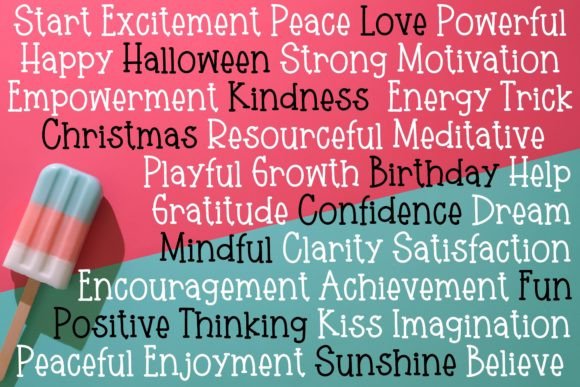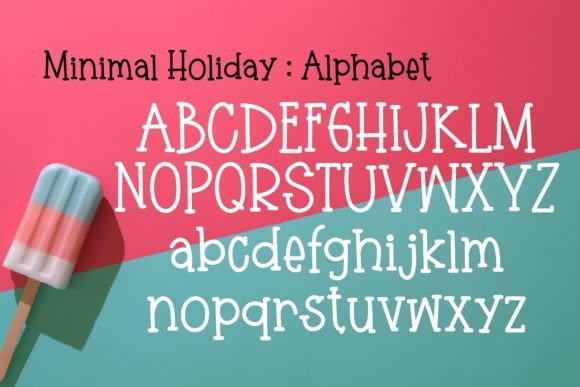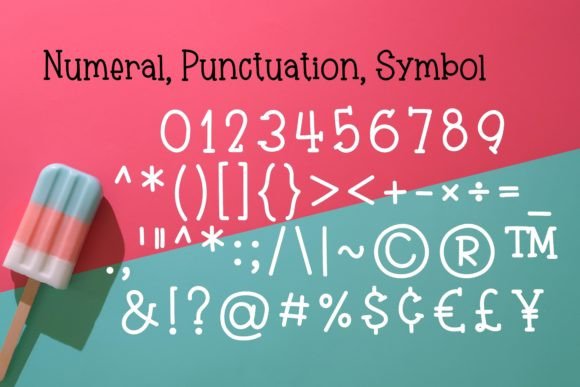
Introduction to Minimal Holiday Font
As the holiday season approaches, we find ourselves surrounded by twinkling lights, festive decorations, and joyful music. It’s the perfect time to get creative and make our designs shine. But, have you ever felt like something’s missing from your holiday-themed project? Perhaps a font that embodies the warmth and coziness of the season?
Enter the Minimal Holiday Font, a delightful and friendly handwritten font that’s sure to elevate your creative project. With its high-quality design and transparent background, this font is an absolute must-have for any designer looking to add a touch of holiday magic to their work.
Whether you’re working on a holiday card, a festive social media post, or a fun design project, the Minimal Holiday Font is a valuable resource that’s sure to bring your ideas to life.
Key Features of Minimal Holiday Font
- High-quality design resource ideal for creative projects, including greeting cards, gift tags, and festive invitations.
- Unique, minimalist design with a transparent background, perfect for layering and mixing with other design elements.
- Includes 6 stylish font styles, each with a distinct flair and personality, suitable for a variety of design applications.
- Perfect for designers seeking a simple yet elegant font to elevate their creative projects and add a touch of holiday cheer.
Honest Review: Minimal Holiday Font
As a designer, I’m always on the lookout for high-quality design resources to elevate my creative projects. Recently, I stumbled upon the Minimal Holiday Font, and I’m excited to share my thoughts on it.
What works well: ✨ The Minimal Holiday Font is a beautifully crafted font that exudes a sense of elegance and sophistication. The clean lines and simple design make it perfect for any creative project that requires a touch of minimalism. I also appreciate the transparent background option, which allows for easy layering and customization.
Here are some of its key features:
- High-quality design that’s perfect for minimalistic projects
- Transparent background option for easy layering
- Supports a wide range of creative projects
⚠️ However, I do wish the font had more character variations and styles to offer. At times, the simplicity can feel a bit too restrictive, making it difficult to add some much-needed personality to a design.
Overall, I’d say the Minimal Holiday Font is a great addition to any designer’s toolkit. While it may have some limitations, its high-quality design and transparent background make it a valuable resource for any creative project.
The Minimal Holiday Font is ideal for use in holiday-themed designs, such as:
1. Holiday cards and invitations.
2. Social media posts and advertisements.
3. Brochures and flyers.
To get the most out of the Minimal Holiday Font, try using it with a transparent background to create a sense of depth and dimension in your design.
Alternatives to Minimal Holiday Font
Winter Wonderland Font
Winter Wonderland Font is a high-quality, free download font perfect for your next creative project. It features a transparent background, making it ideal for overlaying on images or videos. This font is great for designers looking for a more elegant and sophisticated look compared to Minimal Holiday Font.
Holiday Cheer Font
Holiday Cheer Font is a fun and playful design resource that is perfect for festive projects. It includes a range of festive characters and symbols, making it a great choice for designers who want to add a bit of whimsy to their designs. Compared to Minimal Holiday Font, Holiday Cheer Font is more playful and fun, but may not be suitable for all types of creative projects.